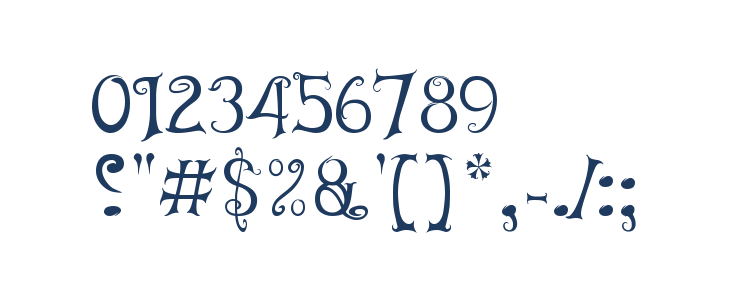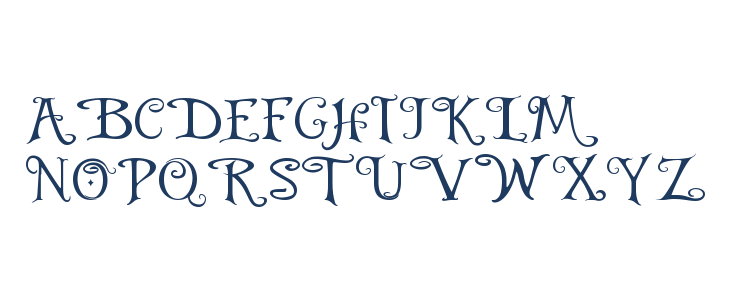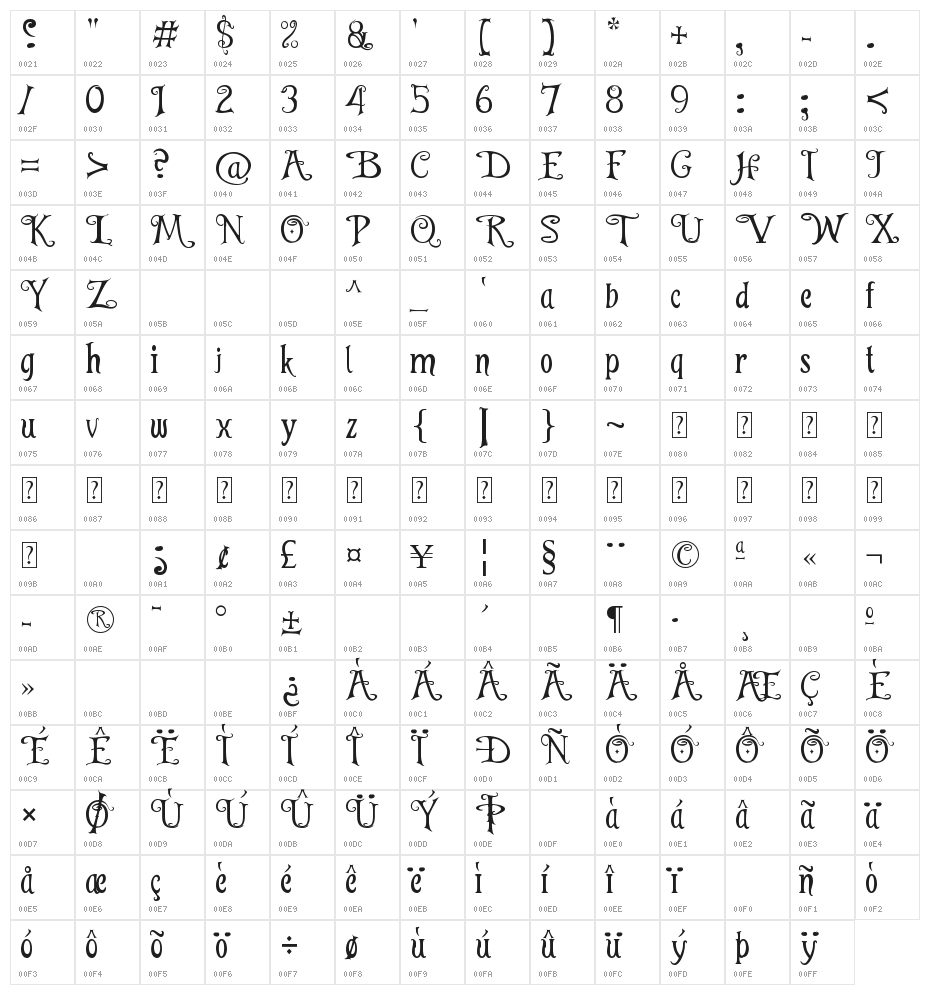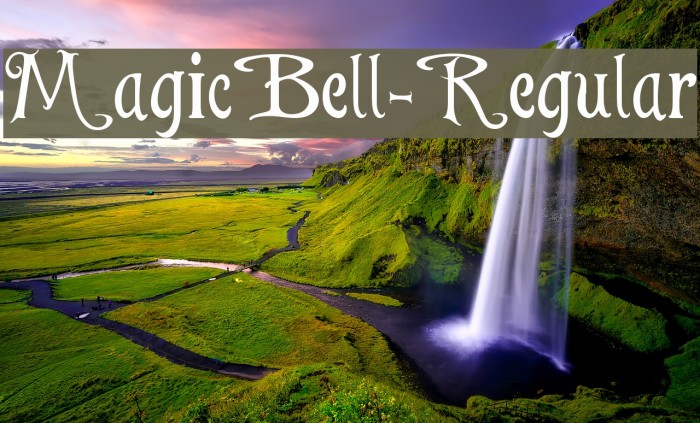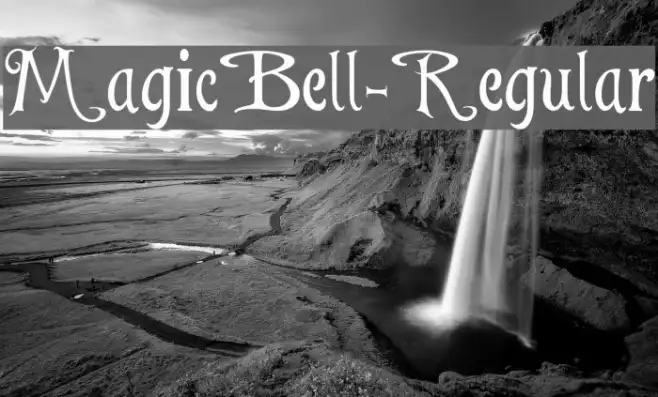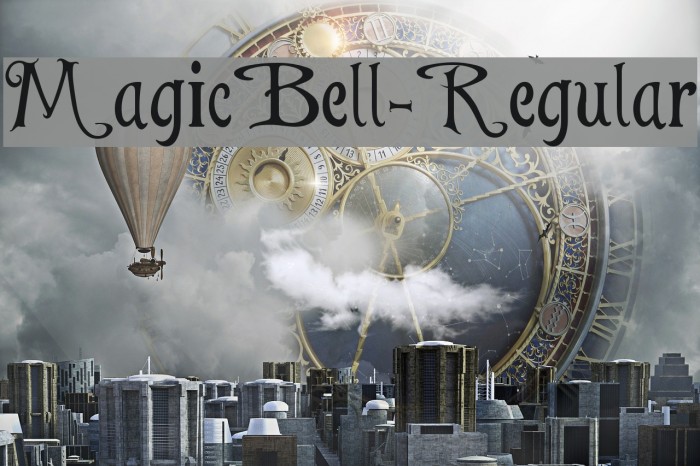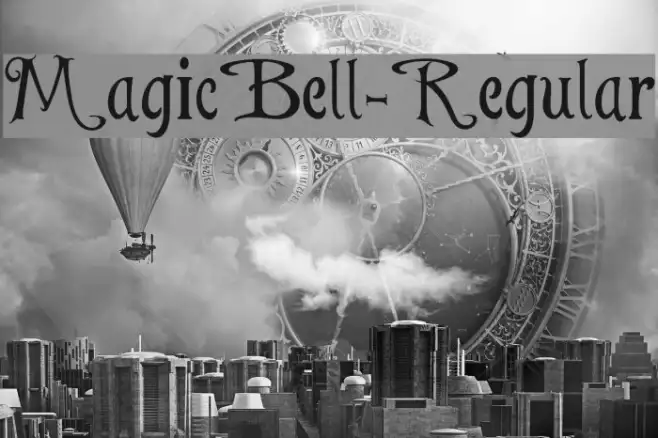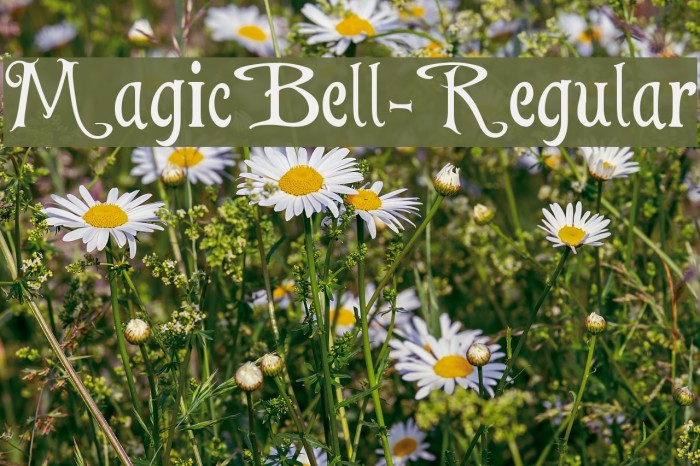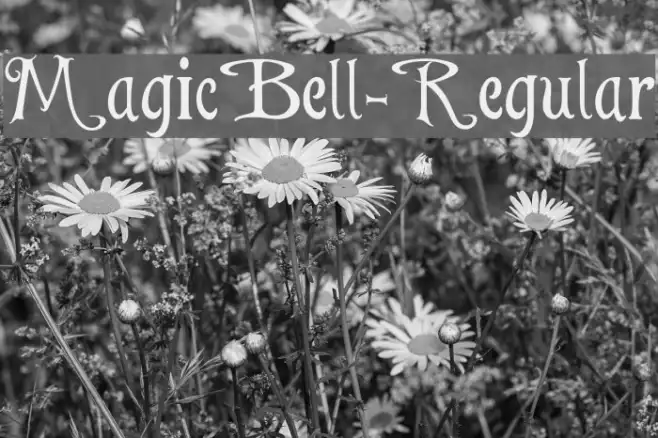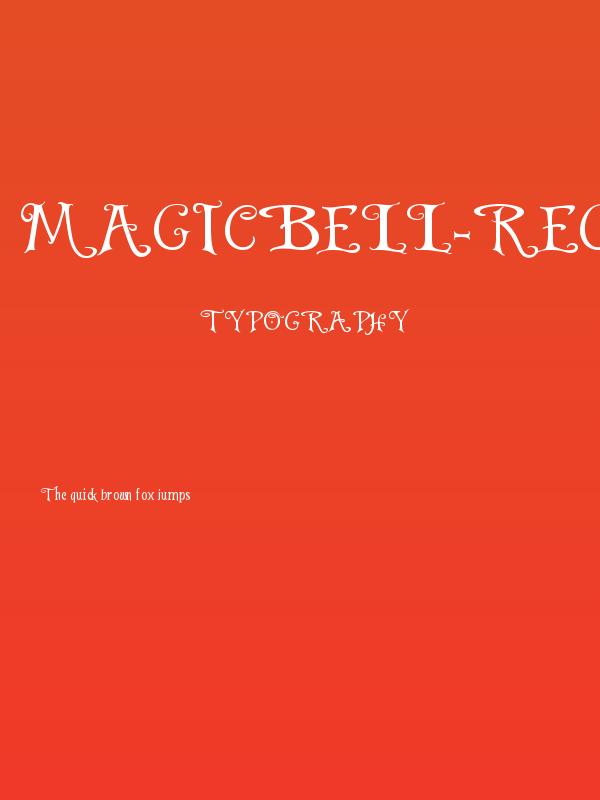
MagicBell-Regular Font
This font features a whimsical and playful design with a decorative flair. The uppercase letters exhibit a unique style with curly serifs and intricate details, giving them a magical and enchanting appearance. The lowercase letters maintain a consistent playful theme, with some characters having exaggerated curves and loops. The numerals are bold and distinct, matching the overall decorative style. Special characters are creatively designed, adding to the font's charm. This font is perfect for projects that require a touch of fantasy and creativity.
| Proposed Projects | Ideal for fantasy-themed projects, children's book titles, greeting cards, and whimsical branding. |